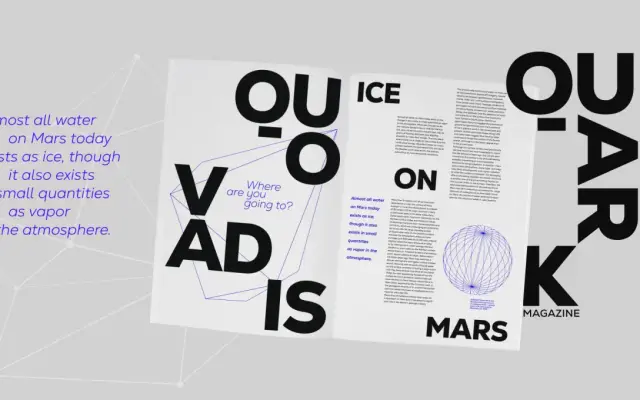
Nexa
Fontfabric · Svetoslav Simov · 2012
A circle-based geometric sans from Fontfabric, spanning 36 styles across a main display subfamily and a text-optimised variant with looser spacing.
Designed by Svetoslav Simov and released in 2012, Nexa built its reputation on clean geometric construction and well-optimised kerning suited to branding, UI and advertising. The family runs nine weights from Thin to Black with matching italics, and a dedicated Nexa Text subfamily widens the internal spacing for longer-form reading. OpenType features include small caps, tabular figures, fractions and a stylistic set offering squared stroke alternates for display use, with Cyrillic and Extended Latin covering over 130 languages.
Nexa is explicitly circle-based with clean geometric forms and low contrast, placing it squarely in the geometric sans-serif tradition alongside faces like Gotham and Avenir.